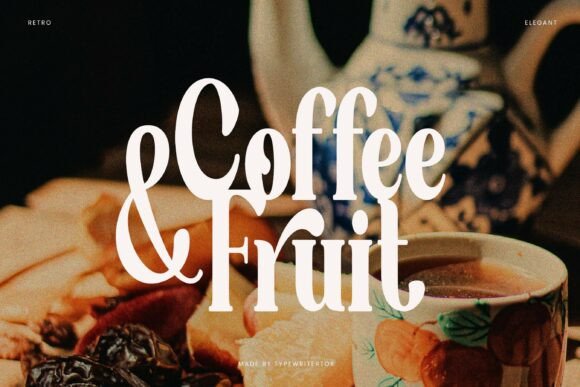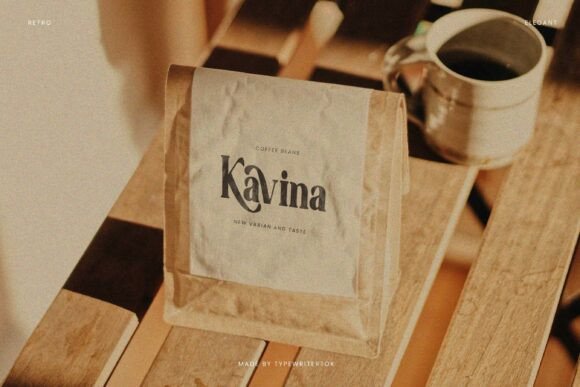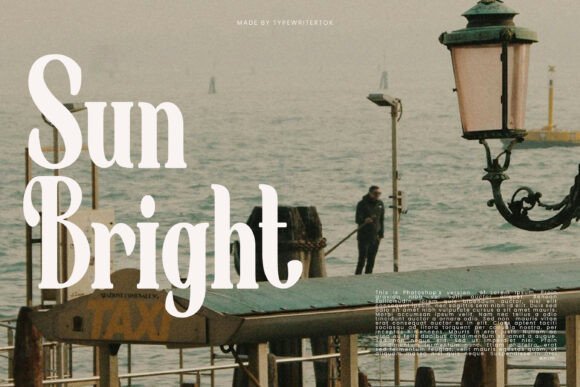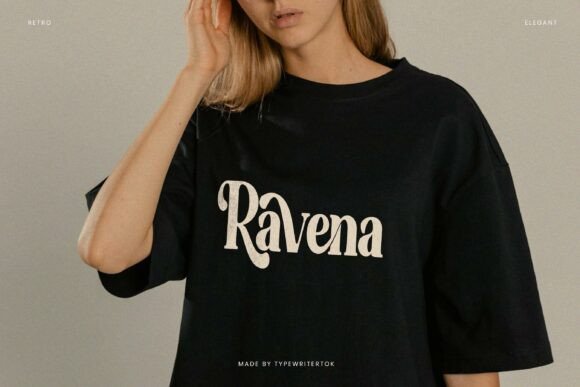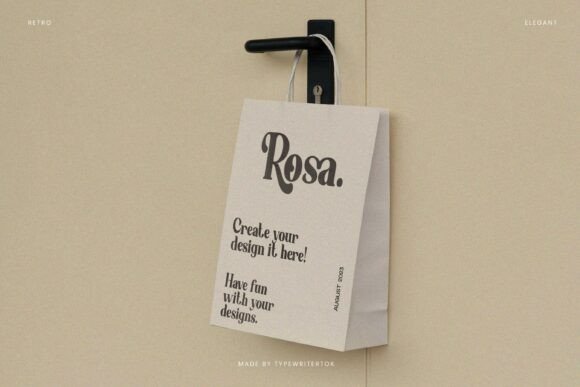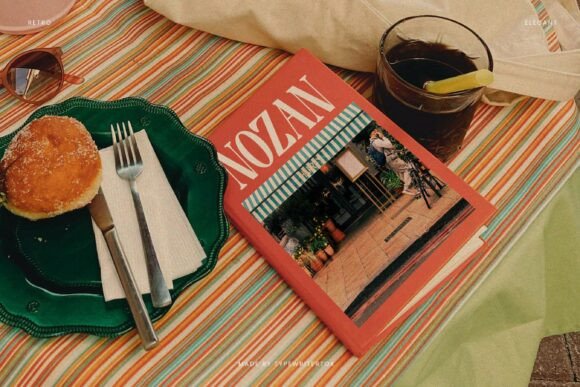
Introduction to Ravena Font
Ravena is an elegant retro serif font that blends vintage charm with sophisticated design.
Featuring refined curves and classic serifs, this font is suitable for branding, editorial designs, luxury packaging, wedding invitations, fashion magazines, and retro-inspired projects Elevate your designs with the timeless beauty of Ravena.